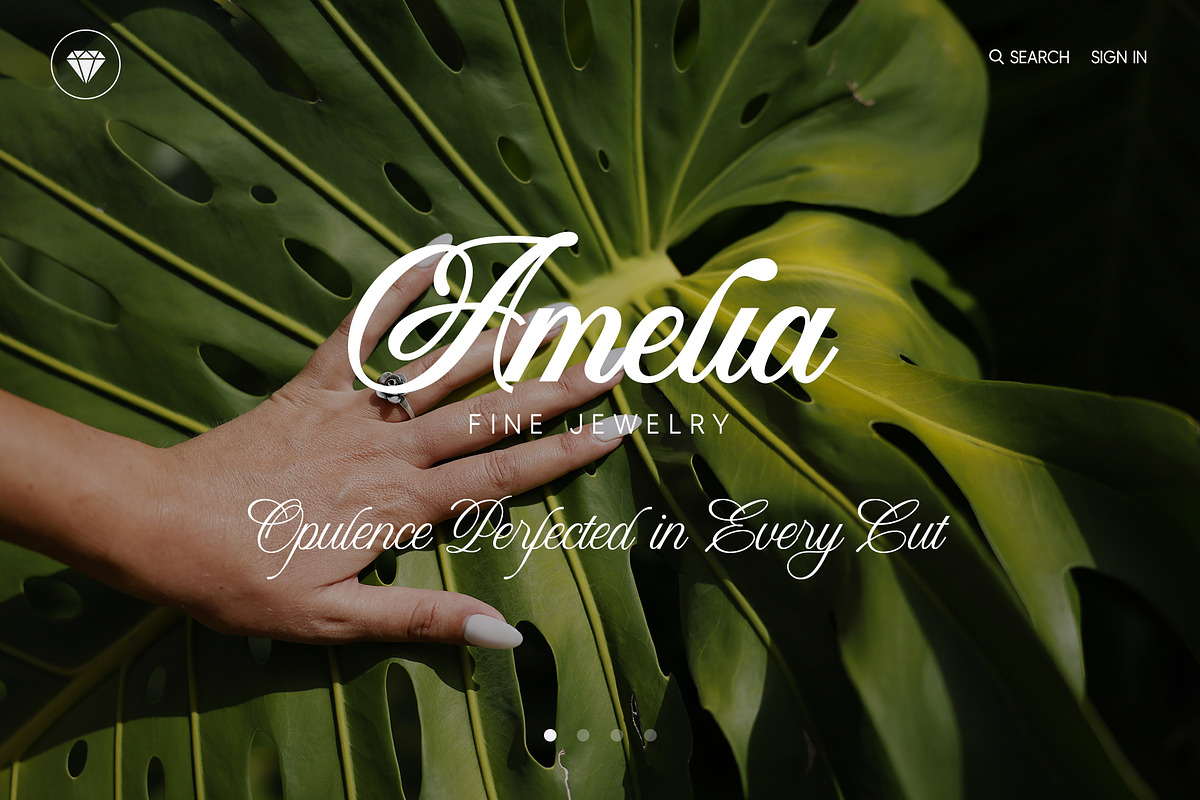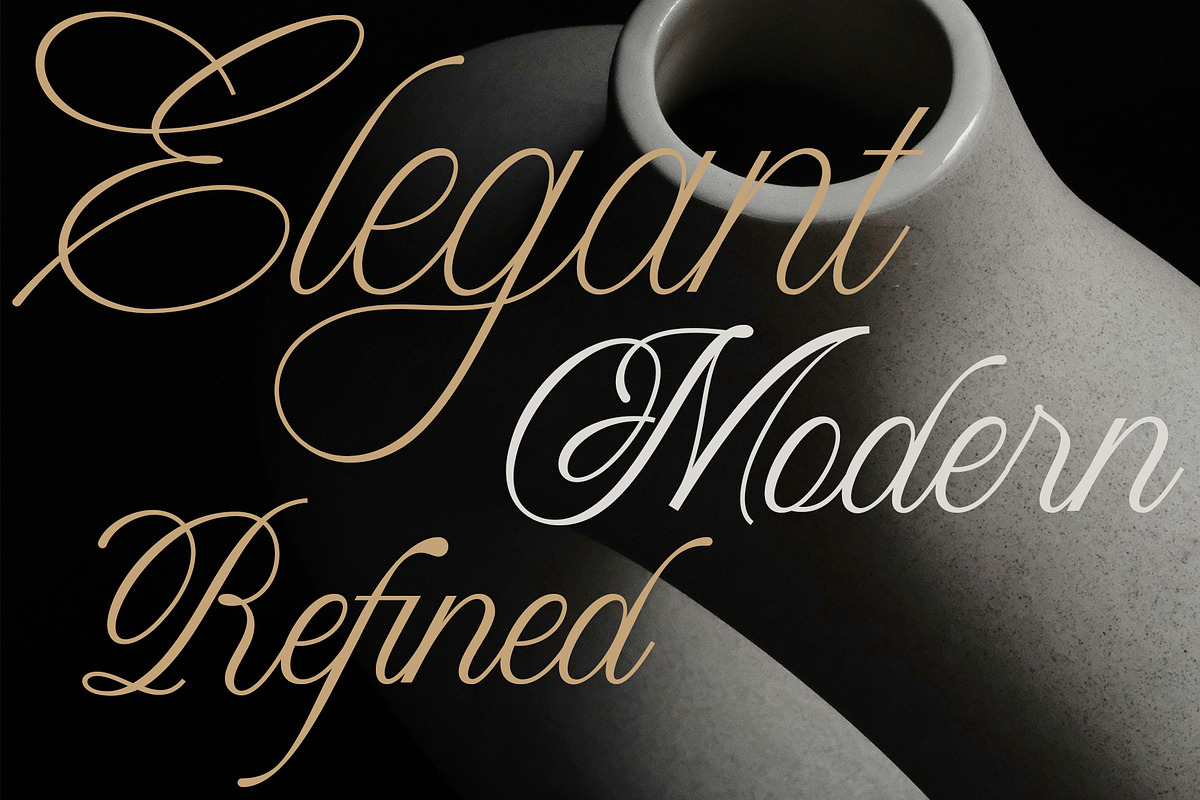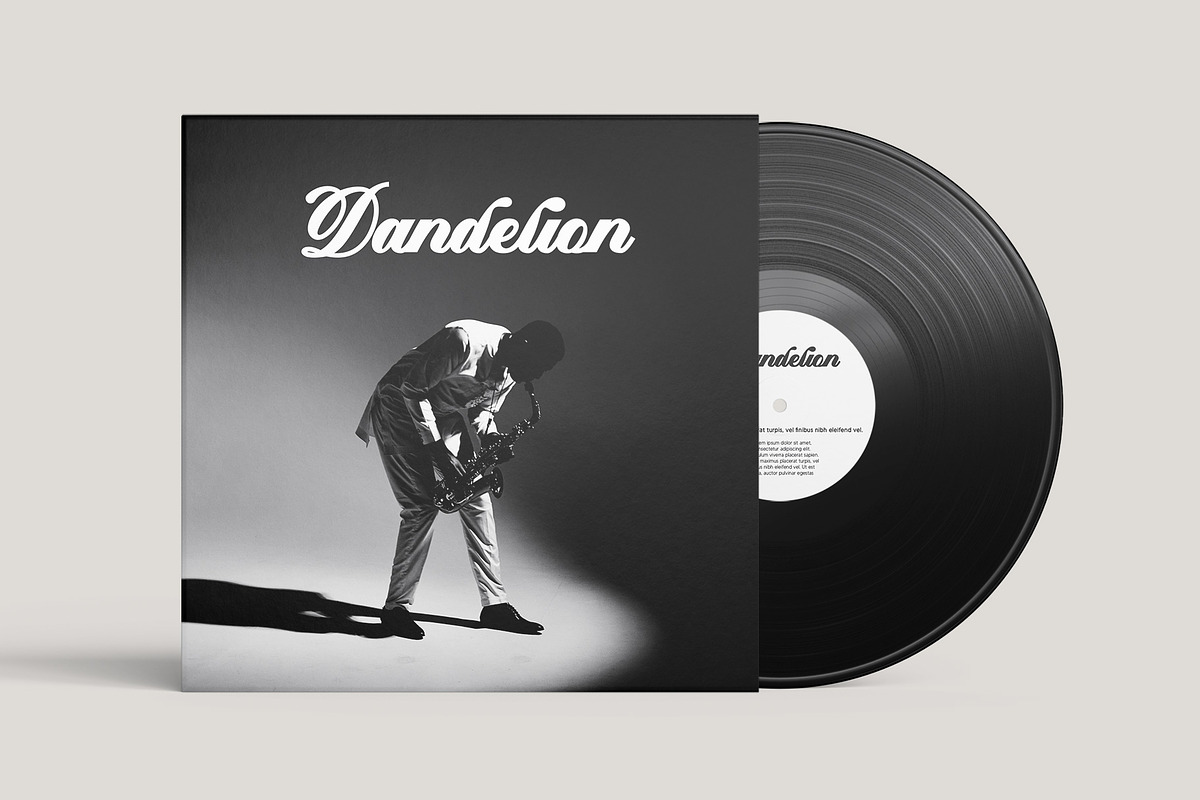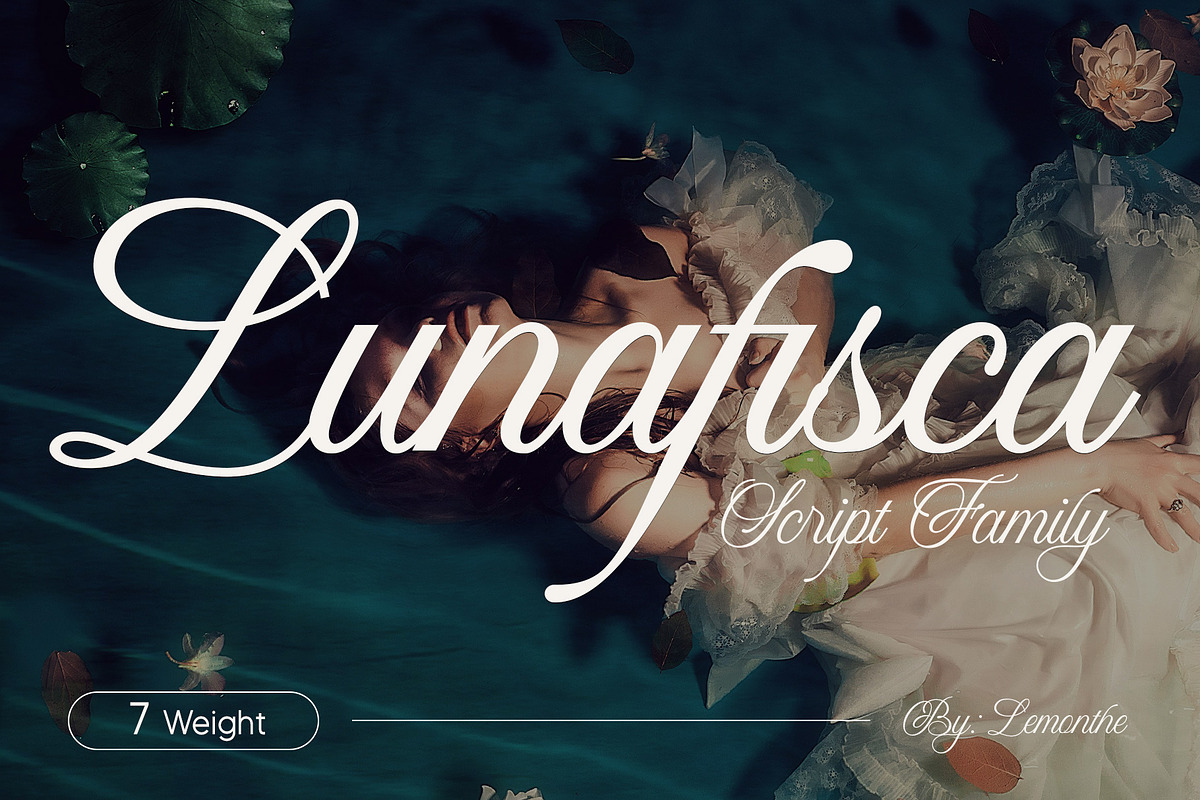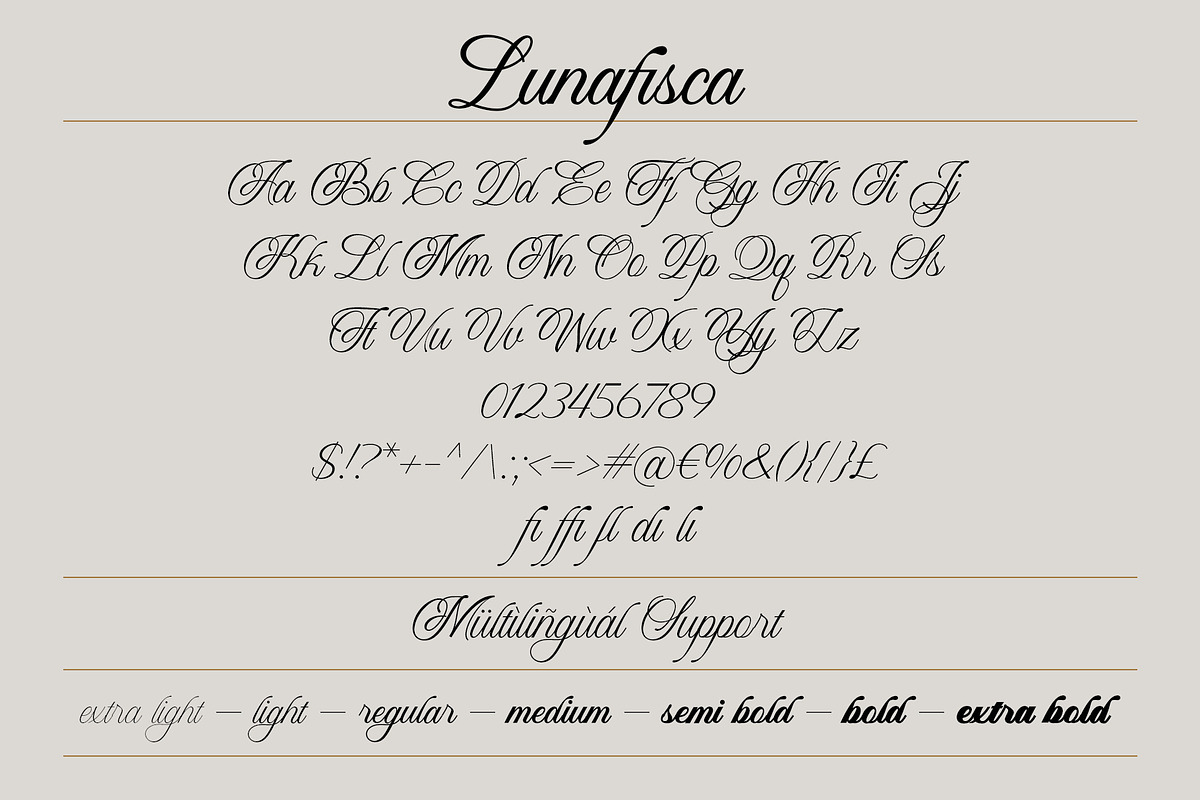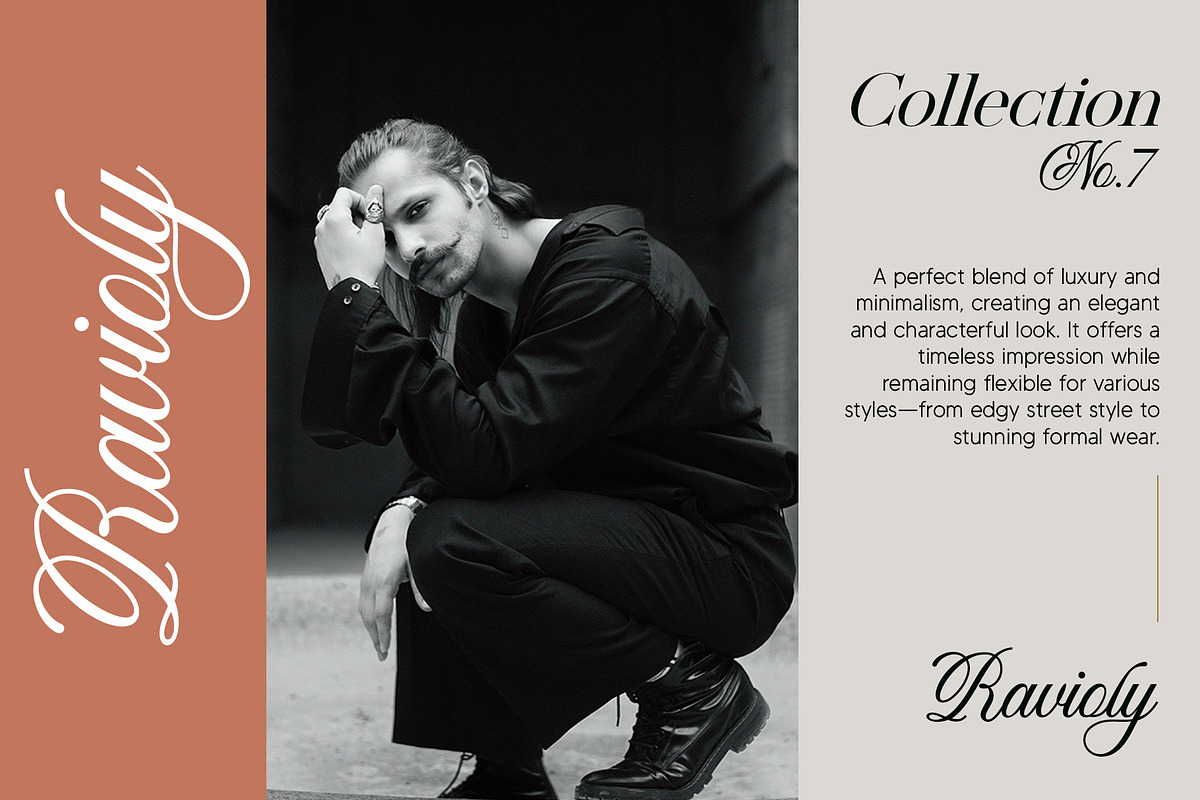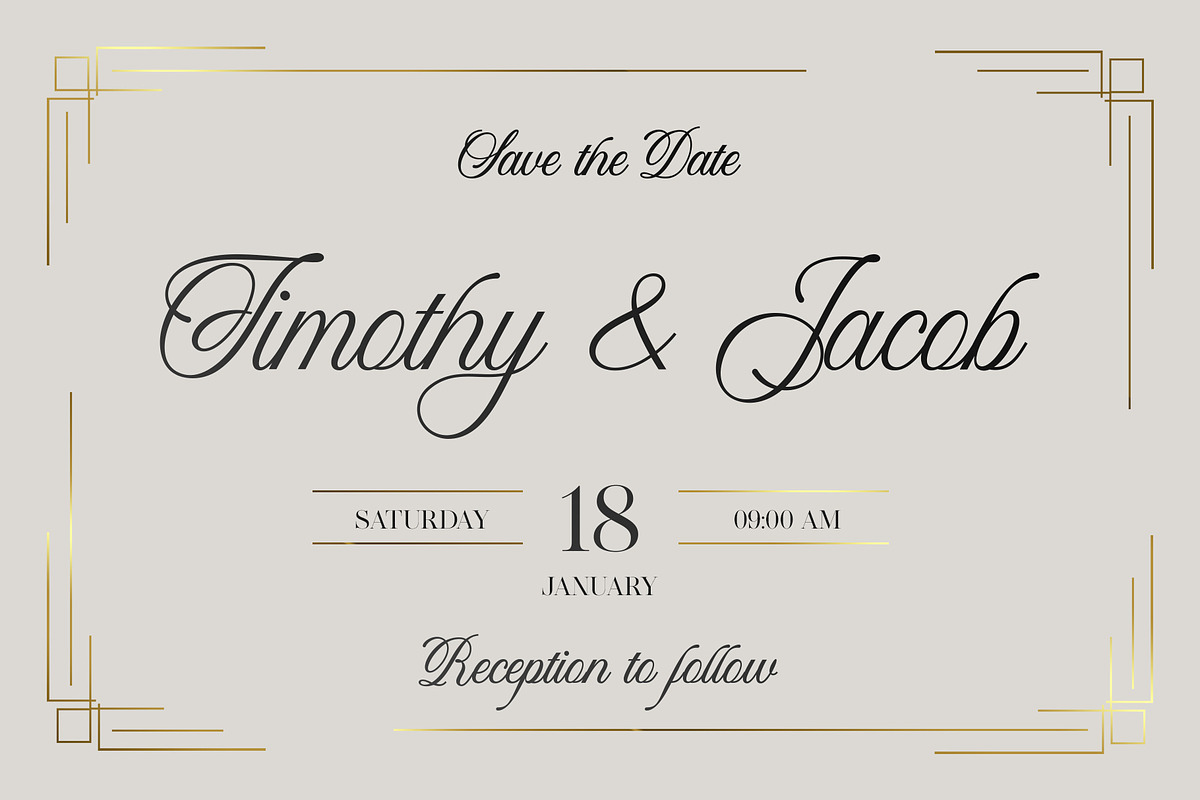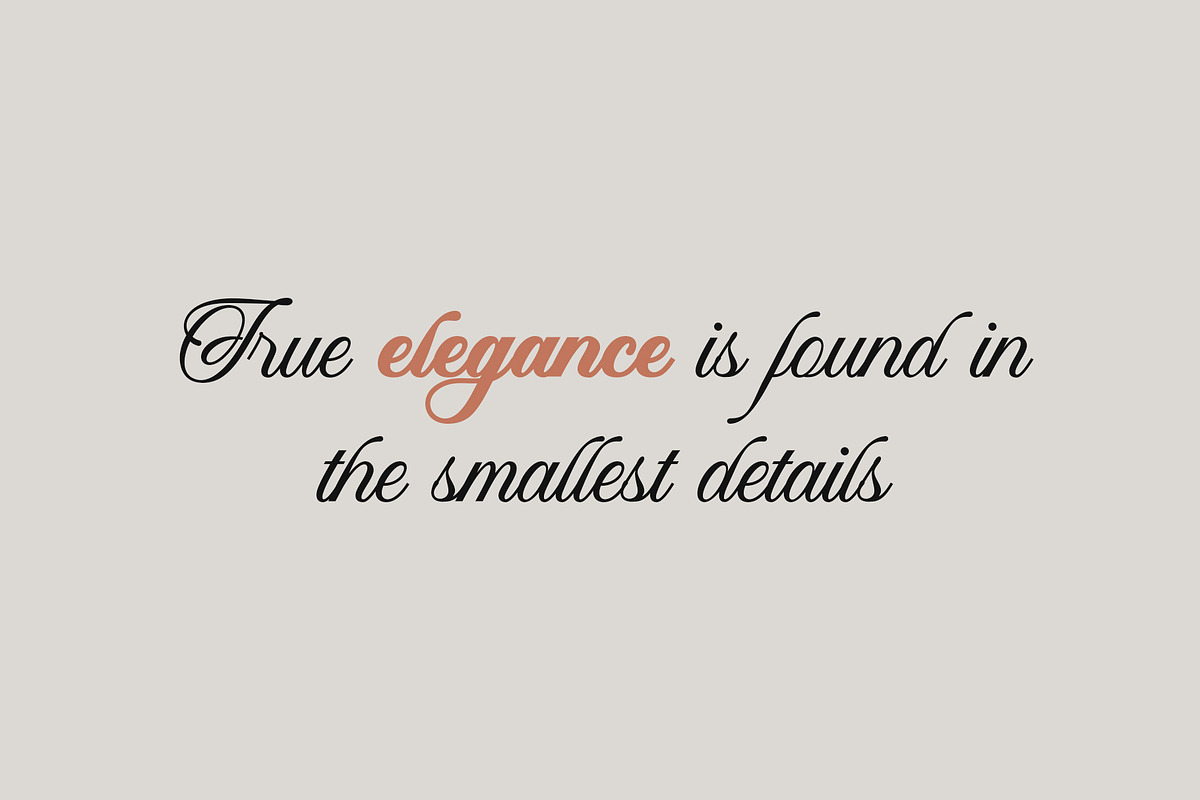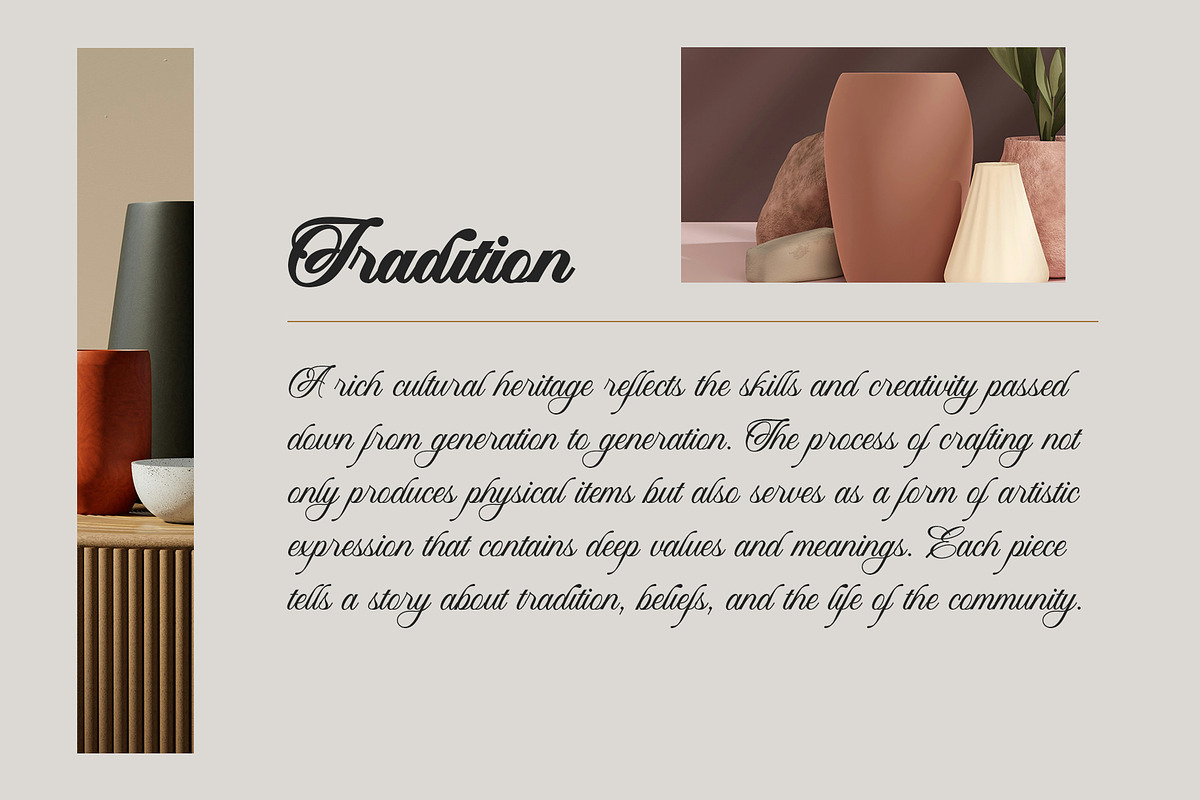
Lunafisca | Script Family
Lunafisca is a script font family designed in simple and elegant letterforms. Available in 7 different weights, this font provides flexibility for various projects such as branding, invitations, or editorial work. Its modern and easy-to-read design still provides a professional and attractive look.
- 7 Weight